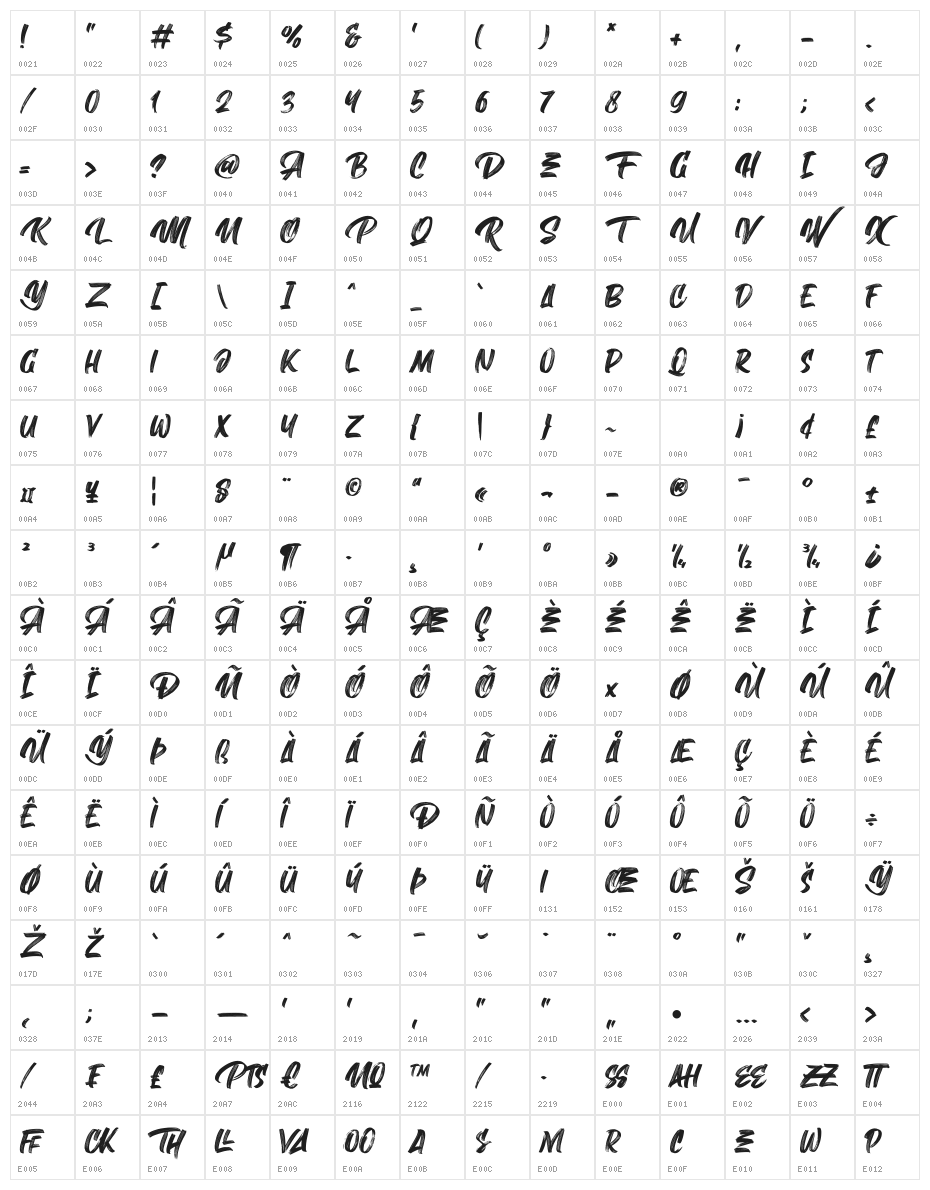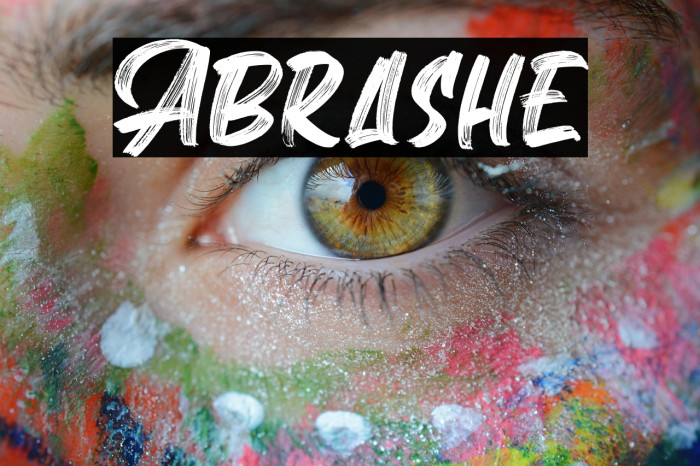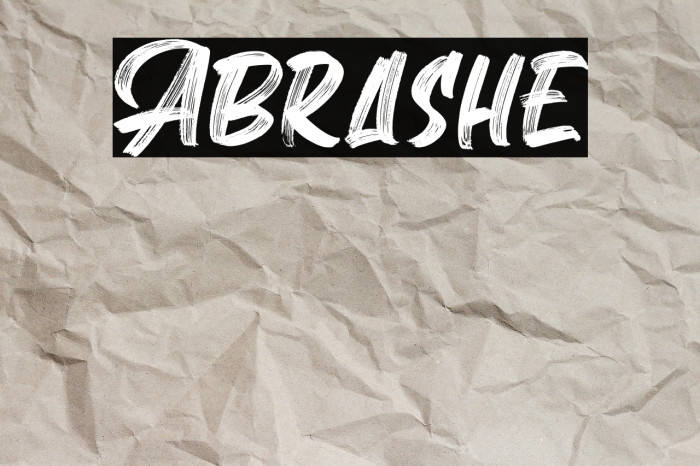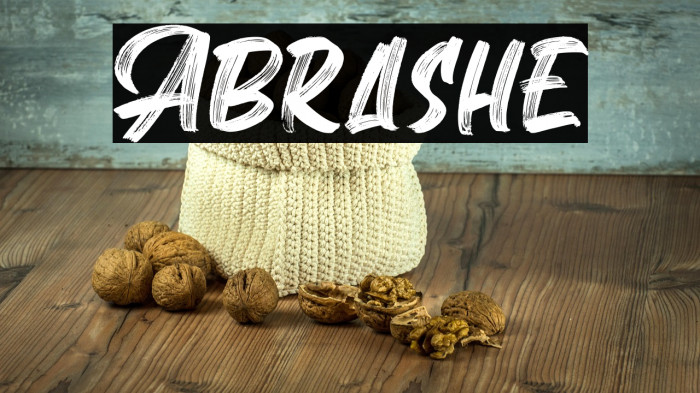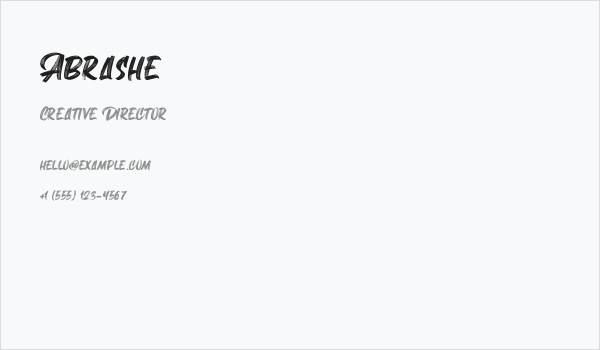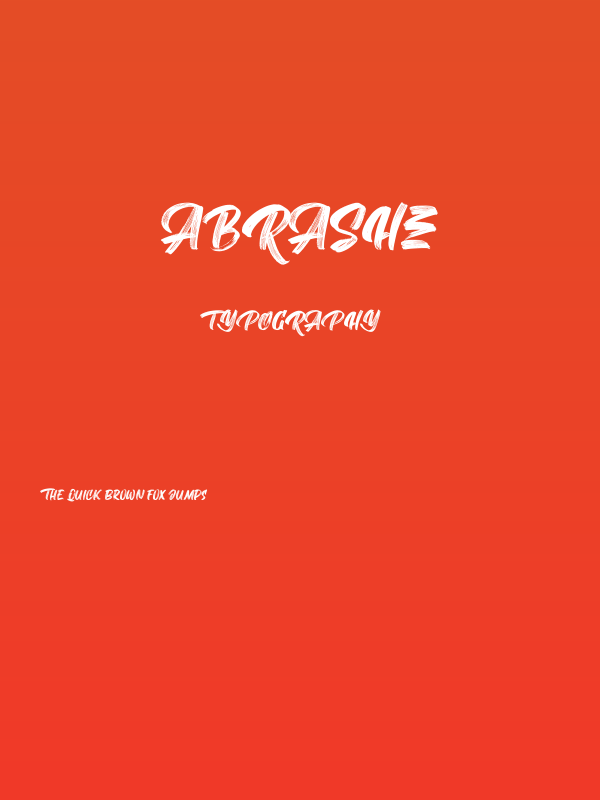
Abrashe Font
Abrashe Description
This font features a bold, brush-like style with dynamic strokes that give it a lively and energetic appearance. The characters are crafted with a sense of movement, as if painted with a broad brush, creating a textured and artistic feel. The uppercase and lowercase letters maintain a consistent style, with some letters exhibiting unique flourishes that add to the overall expressiveness. The numerals and special characters follow the same bold and artistic design, ensuring a cohesive look across all elements. This font is ideal for projects that require a strong visual impact and a touch of creativity.
| Overall Style | Modern, Artistic |
| Proposed Projects | Ideal for posters, branding, headlines, and creative design projects. |